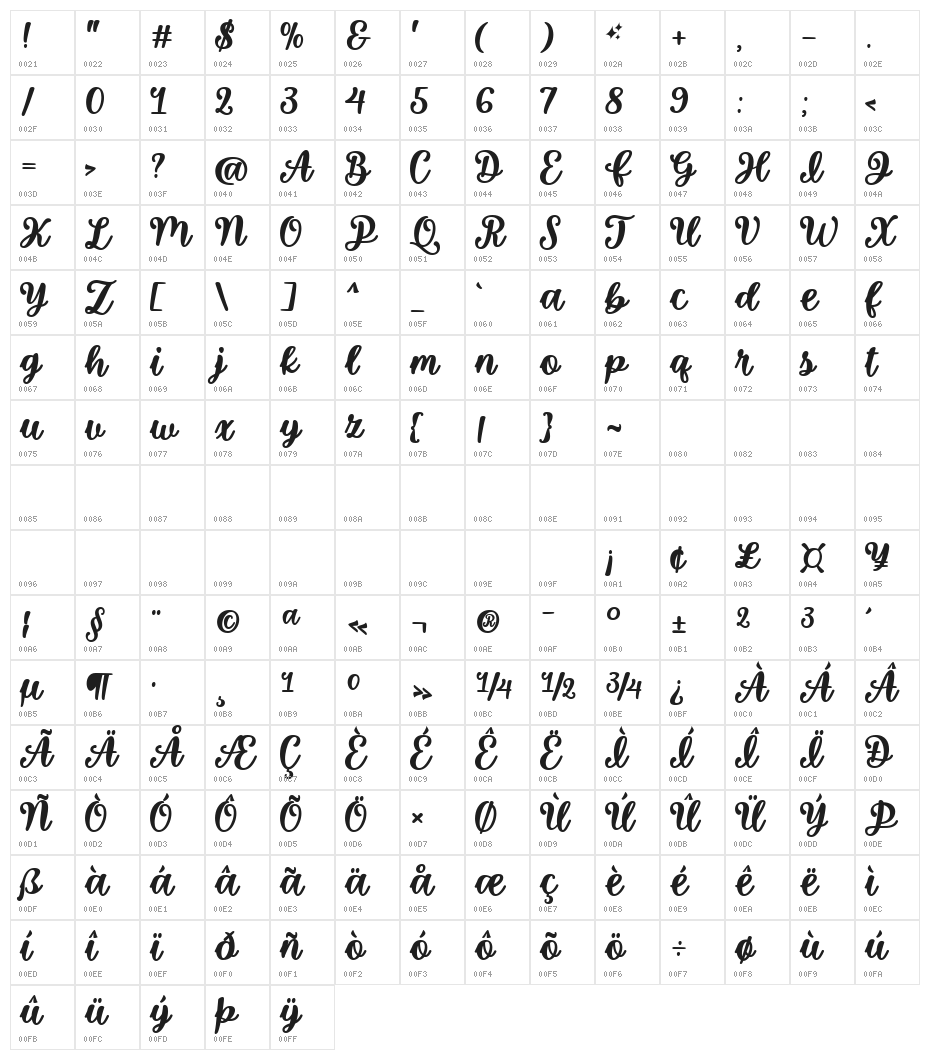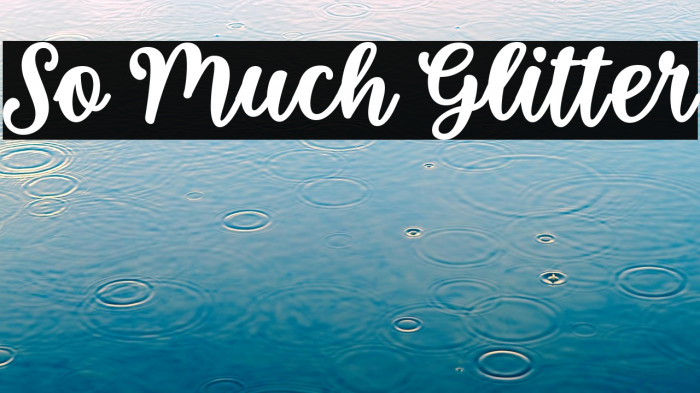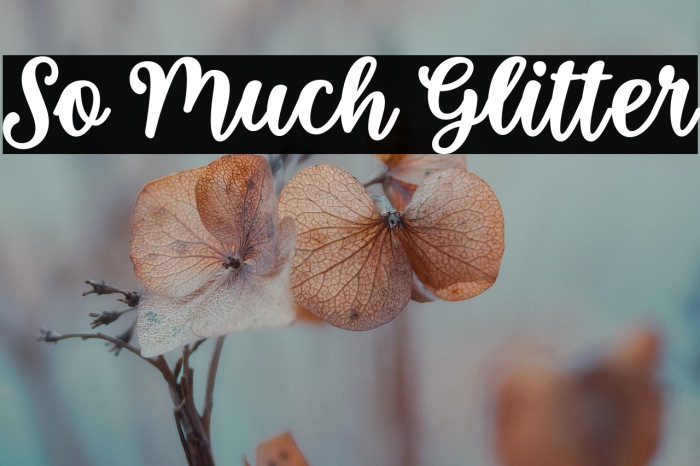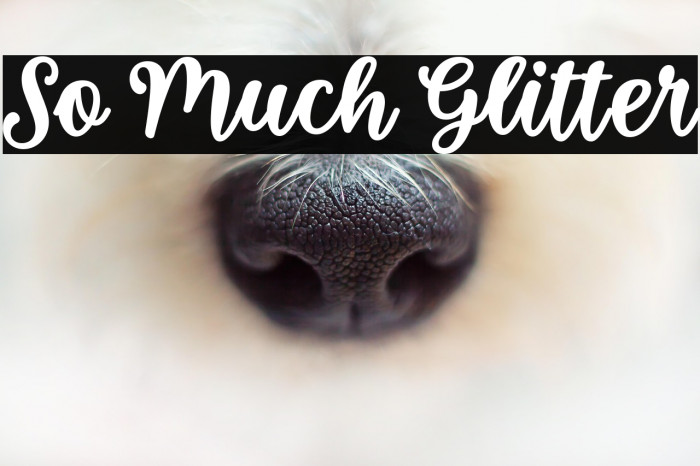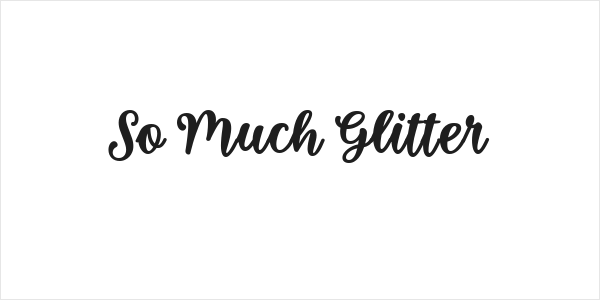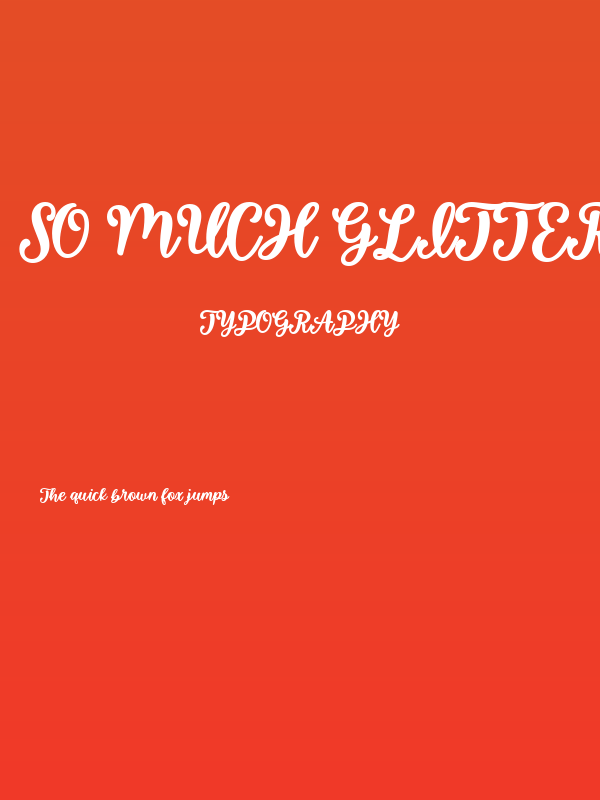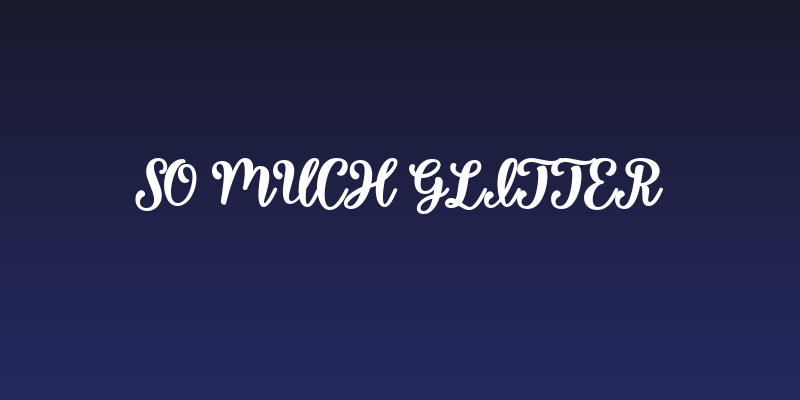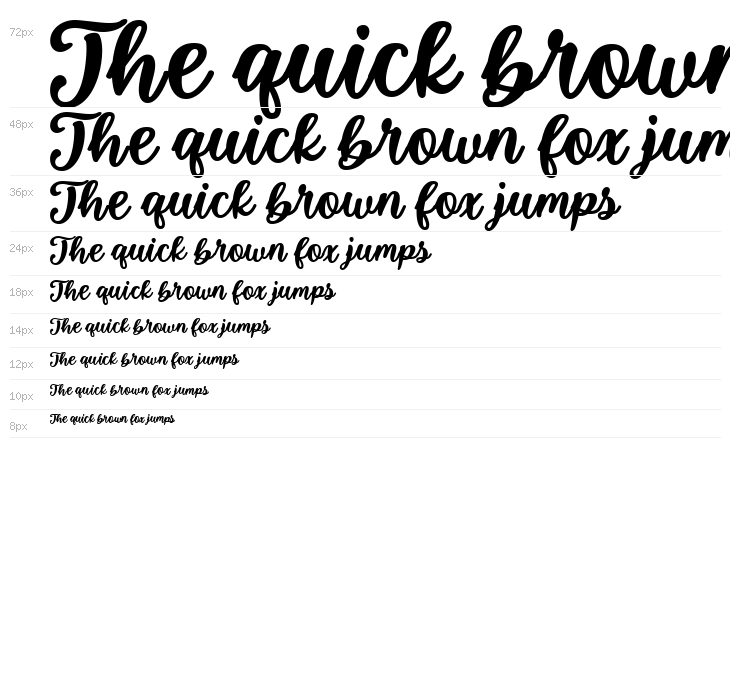
So Much Glitter Font
So Much Glitter Description
This font features a playful and whimsical script style with a bold presence. The characters are interconnected, giving it a flowing and continuous appearance. The uppercase letters are elegantly curved, while the lowercase letters maintain a consistent looped style. Numbers and special characters are designed to match the overall aesthetic, making it versatile for various creative projects. The font's boldness and decorative nature make it stand out, ideal for eye-catching designs.
| Proposed Projects | Ideal for greeting cards, invitations, branding, and social media graphics. |